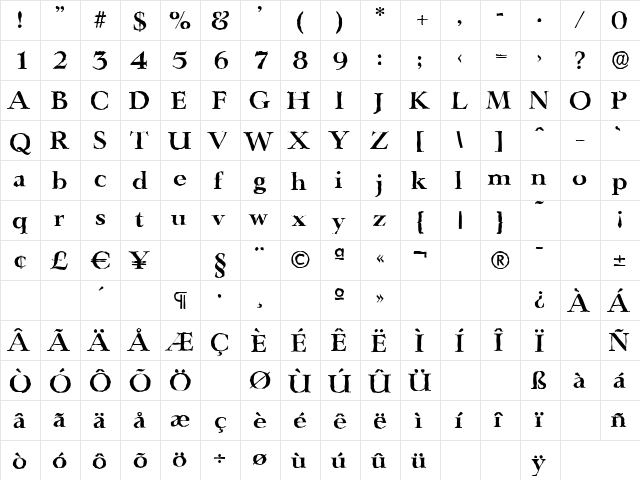
LingwoodAntique Bold
Design Context for LingwoodAntique Typeface
LingwoodAntique echoes the hand-painted signage and woodblock typography of the American frontier, with a warm, rugged personality. The heavy weight commands attention and anchors typographic hierarchies.
A natural fit for craft spirits, ranch branding, rodeo events, and Americana-inspired design work.
Font Pairing: Combine LingwoodAntique with a simple slab or neutral sans — period-accurate companions reinforce the vintage feel without competing for attention.
Pro Tip: Use LingwoodAntique for short, impactful bursts of text — it shines in poster headlines and product names rather than extended copy.